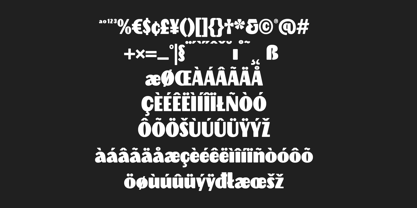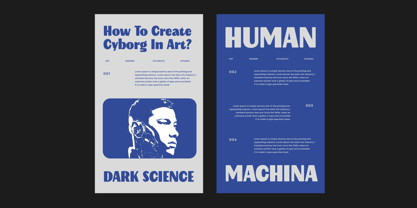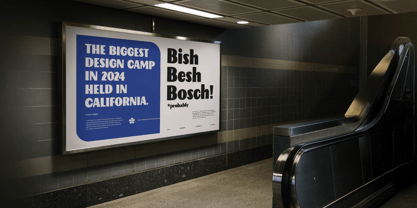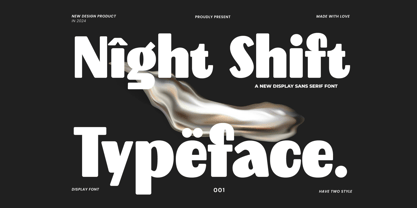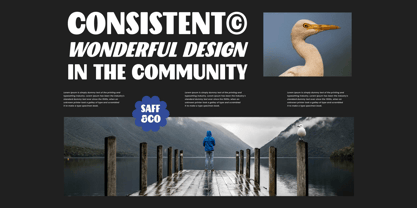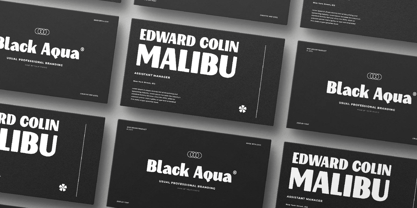
Night Shift
by GraphTypika
The Night Shift Font Family was designed by Dani Irawan and published by GraphTypika. Night Shift contains 2 styles and family package options.
Introducing the Night Shift - Modern Display Sans Serif Font
where sophistication meets versatility in every character 🌟
This font is not just a typographic choice; it's a design statement. With meticulous attention to detail, the Night Shift font boasts an array of alternate characters, allowing you to infuse your text with a unique, personalized touch. The inclusion of both file formats ensures seamless compatibility with various design applications, providing you with the freedom to bring your creative vision to life effortlessly.
As a cherry on top, the font extends multilingual support, breaking language barriers and making it a global asset for designers. Whether you're crafting a sleek logo, a stylish headline, or anything in between, Night Shift Display Sans Serif Font is your go-to choice for a contemporary, refined aesthetic. Upgrade your typography game and let your designs shine with this elegant and adaptable font.